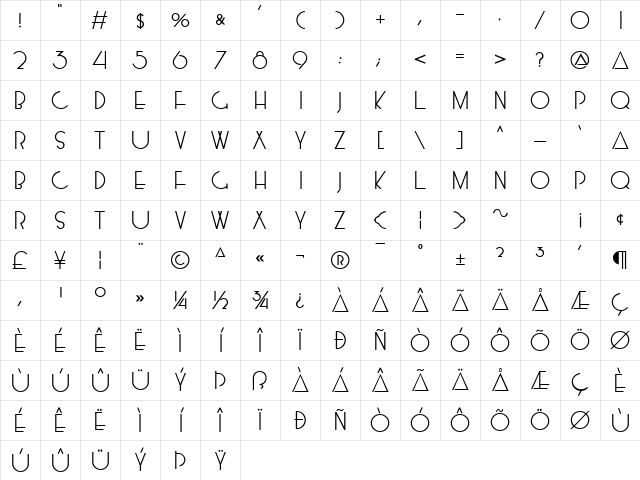
Mossman Normal Free Font
Mossman Normal
Mossman Family
Complete Mossman Normal glyph index. Displaying only characters natively supported by Mossman Normal font.
Design Context for Mossman
Mossman is a composed and adaptable typeface that performs quietly and consistently across a wide range of design contexts.